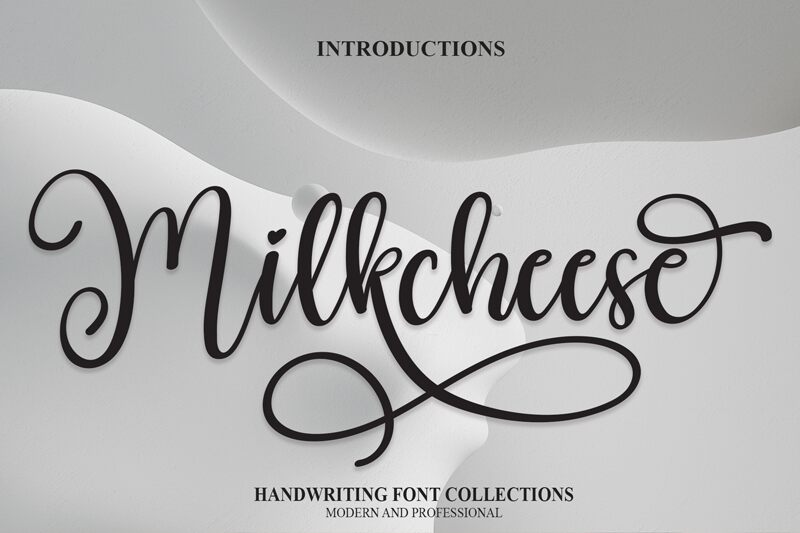
Milkcheese
Milkcheese is a stunning semi-light calligraphy font designed by scratchones. Its fluid strokes and elegant curves make it ideal for a wide range of creative projects, from wedding invitations and greeting cards to branding materials and packaging designs. The font's unique style adds a touch of sophistication to any project, making it perfect for high-end fashion or beauty brands or luxury lifestyle blogs. With its versatile design, Milkcheese is also suitable for logo designs, book covers, and editorial layouts. Use this gorgeous calligraphy typeface to elevate your next project and capture your audience's attention with its effortless charm.
the latest style letters are perfect for wall displays, wedding invitations, social media post logos,
advertisements, product packaging, product designs, labels, photography, watermarks, invitations, stationery,
and any project that requires taste handwriting.